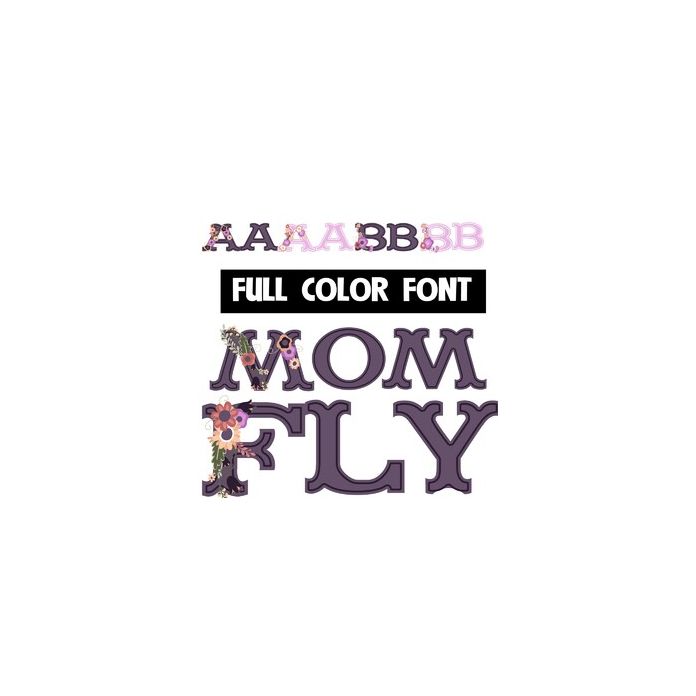
This full-color font features bold, purple lettering with a floral spray on the uppercase. There is an alt case with additional coloring you can access throughout Silhouette's glyph map.